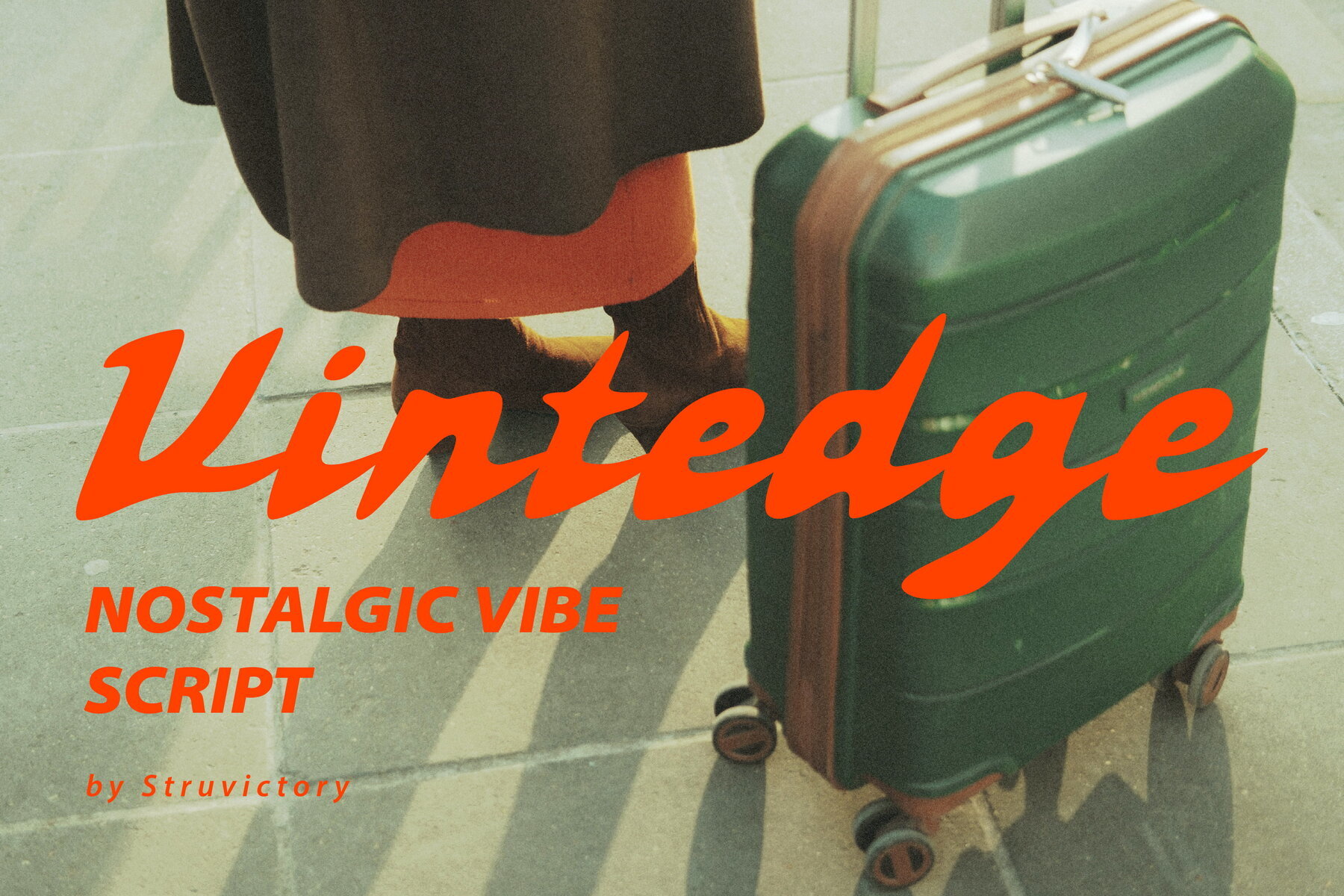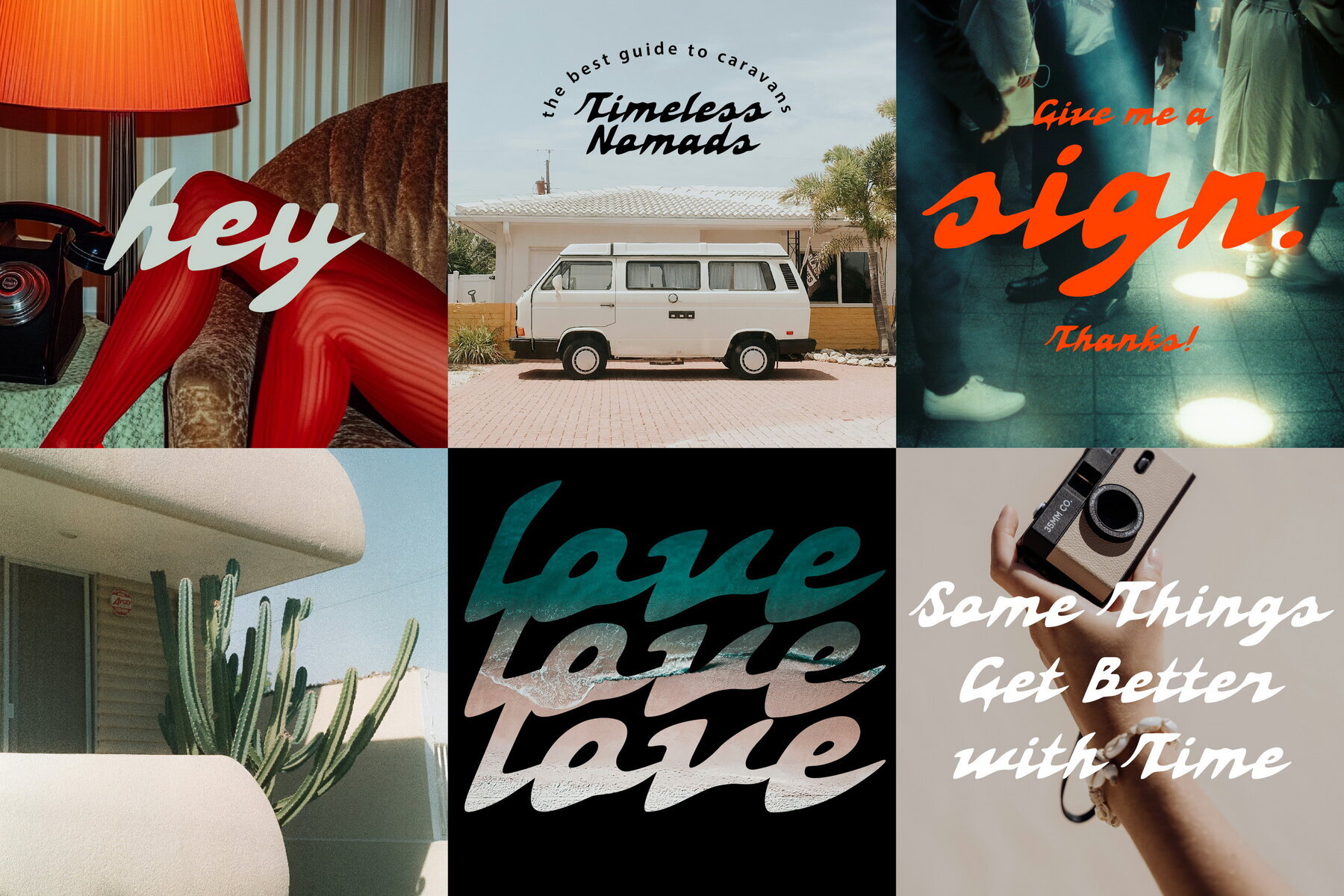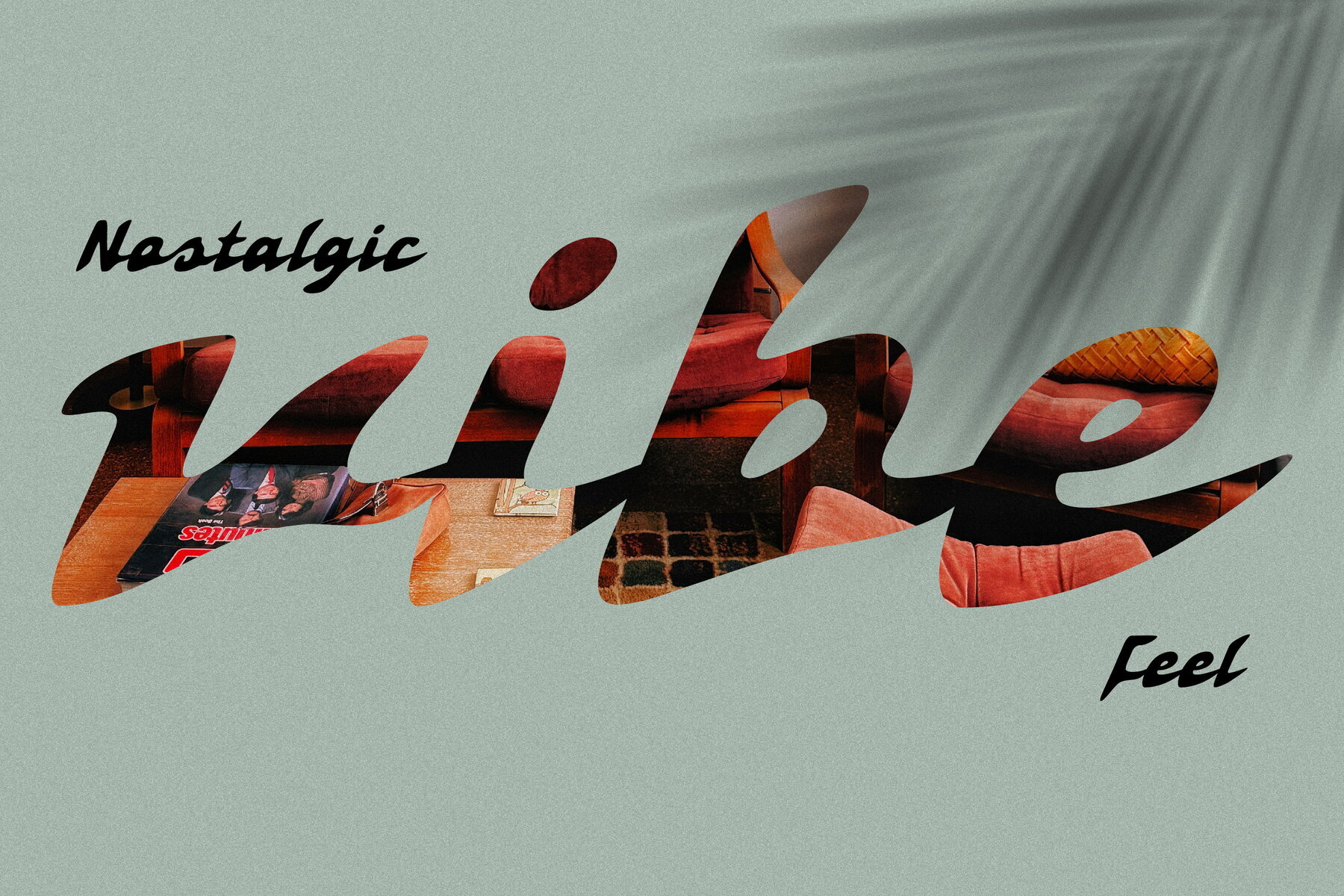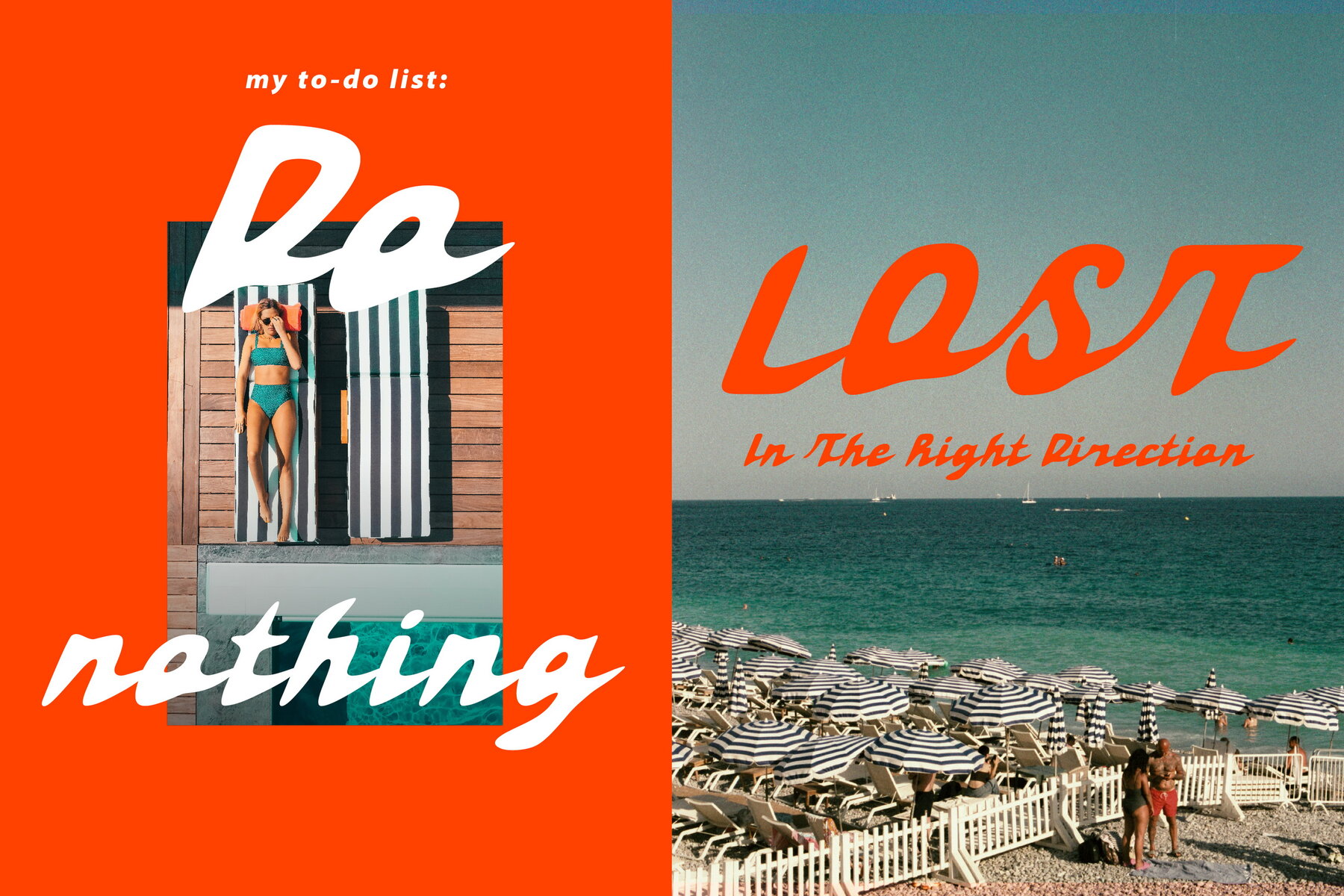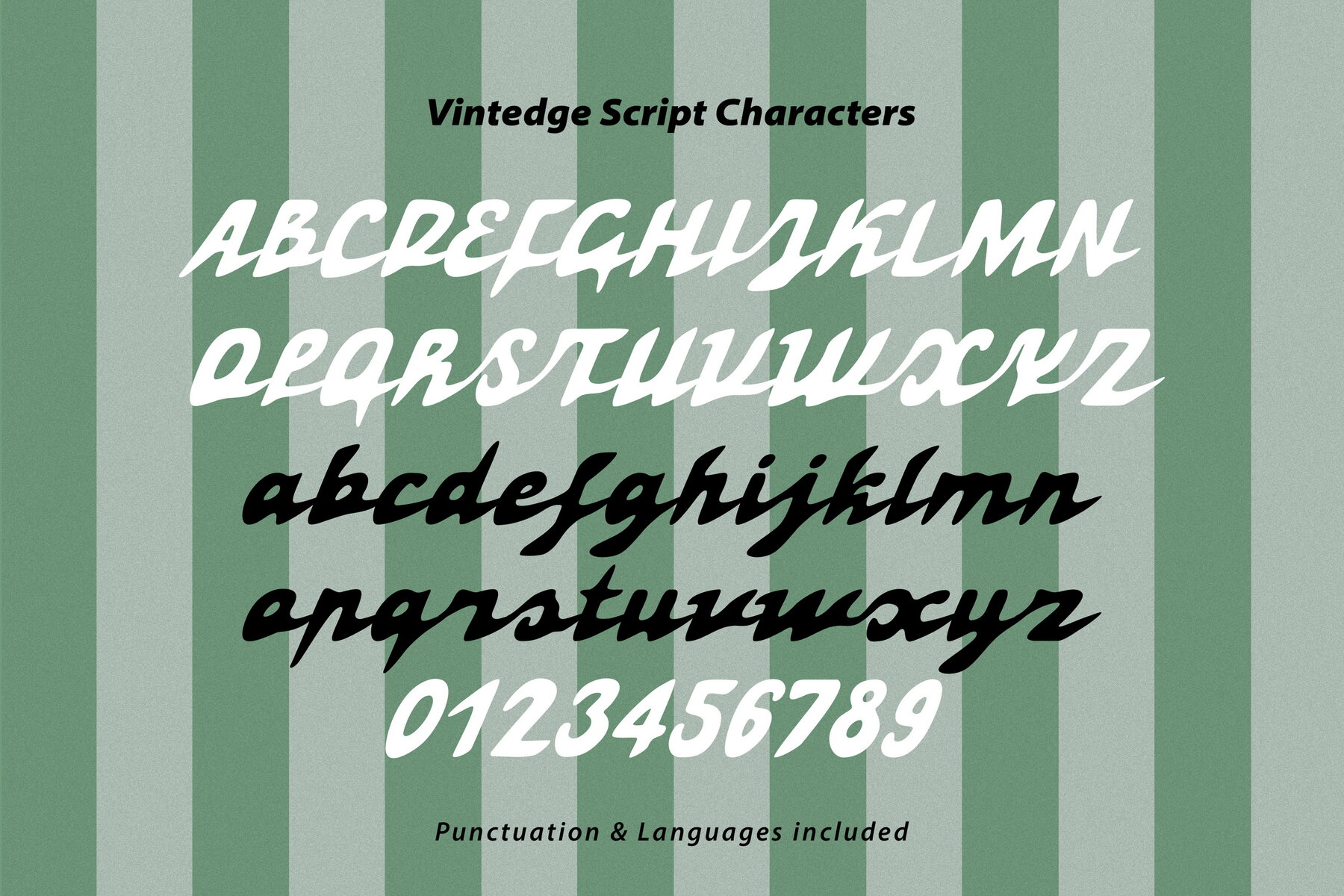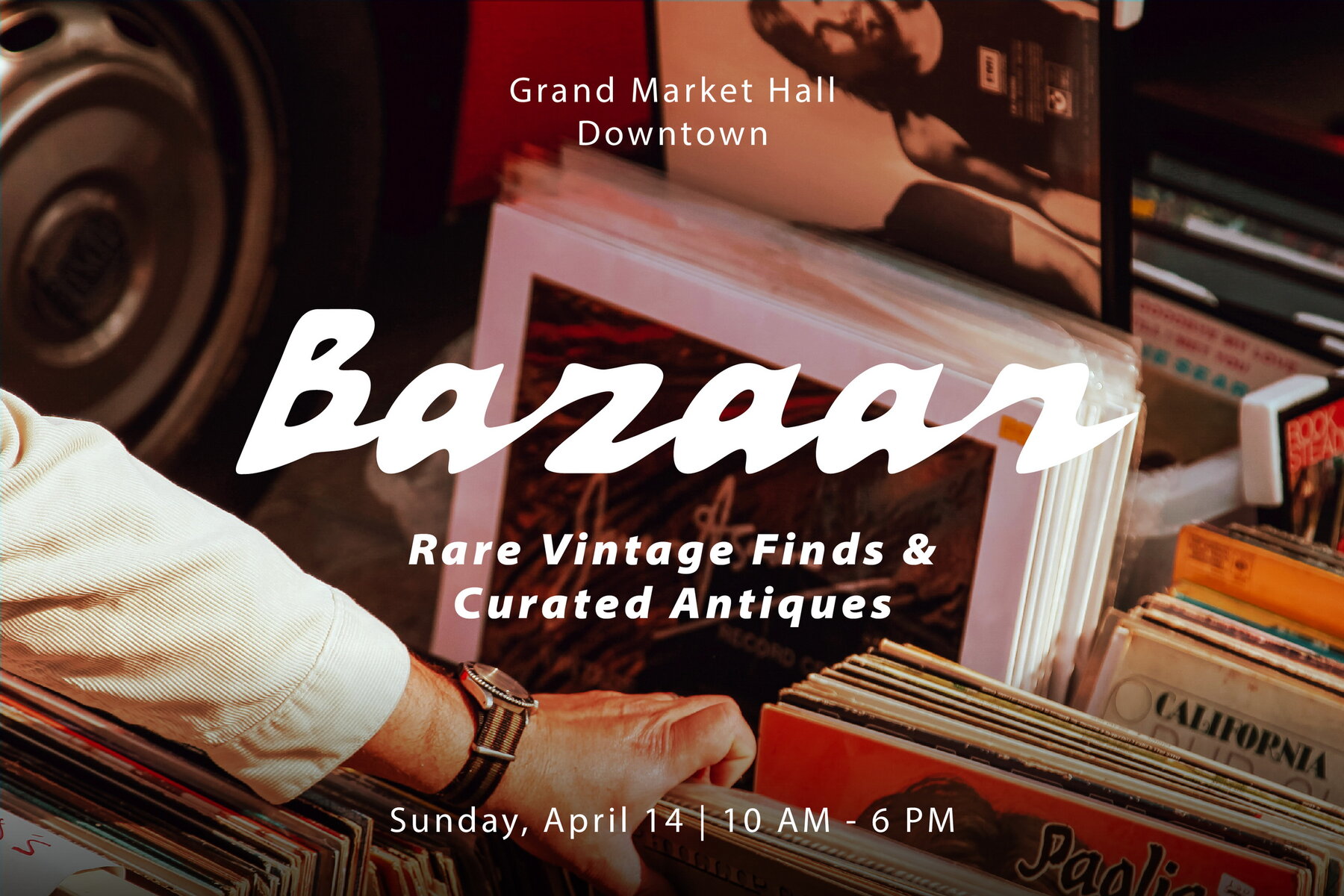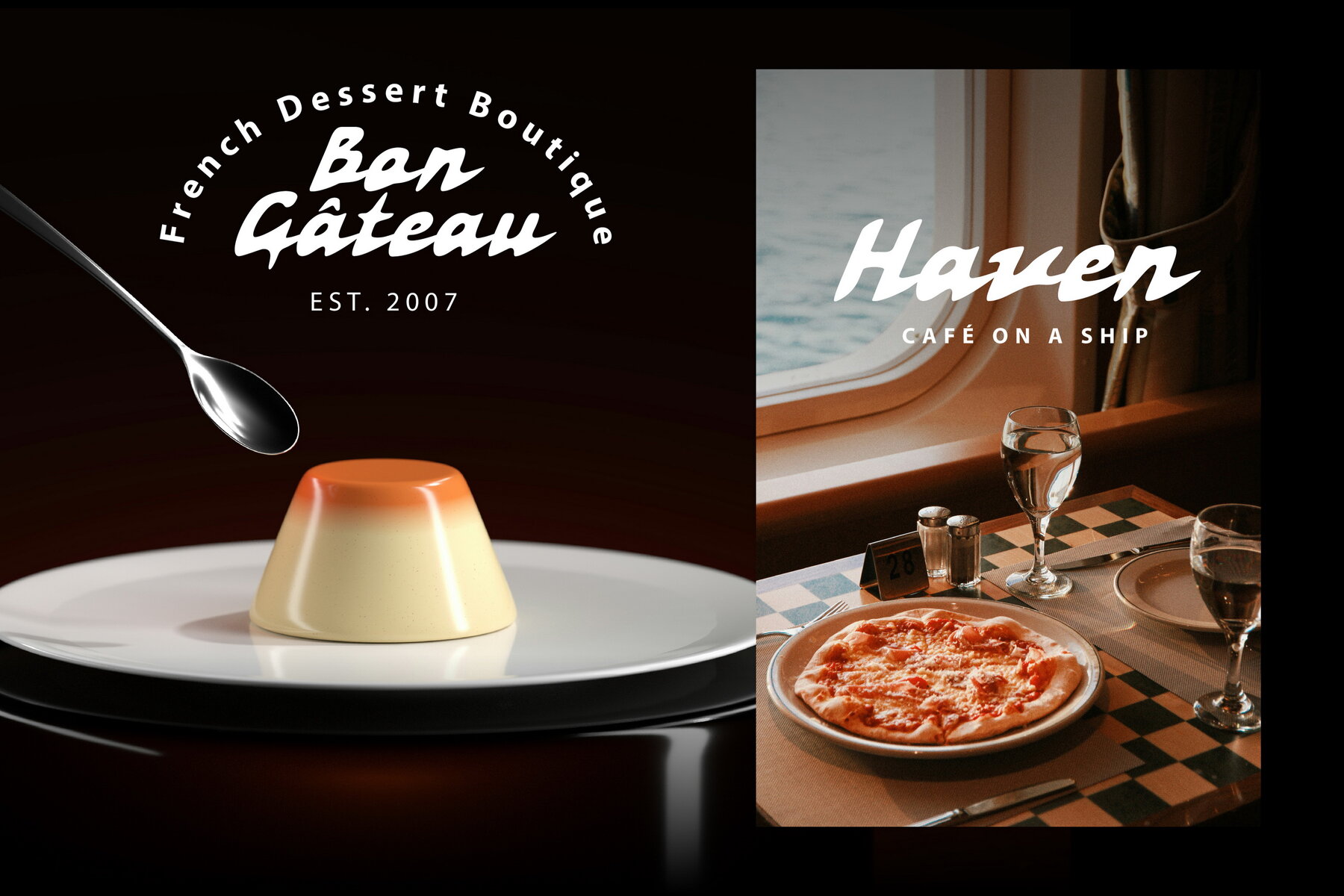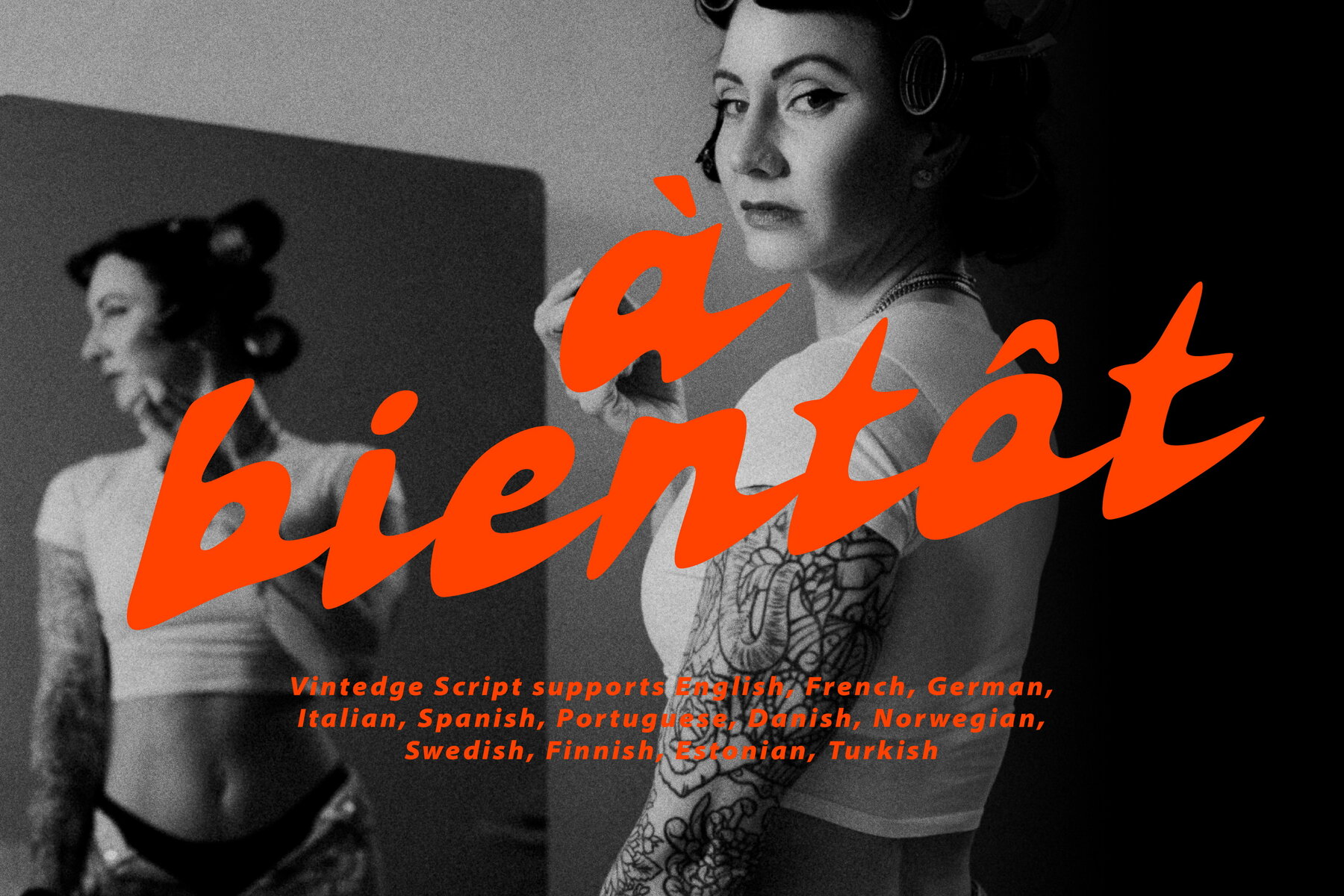
Vintedge Script Font
Vintedge Script
Vintedge Script brings a meeting of nostalgia and sharp energy, cutting through the ordinary with its bold, angular strokes and dynamic motion. Drawing inspiration from vintage labels, retro signage, and mid-century typography, it boasts a distinct edge that is confident, fast, and full of attitude. This typeface forsakes soft curves in favor of crisp, high-impact letterforms, ensuring every word commands attention. Add a punch of retro rebellion to your work with Vintedge Script.Vintedge Script: Bold Hand-Drawn Typeface With Retro Flair